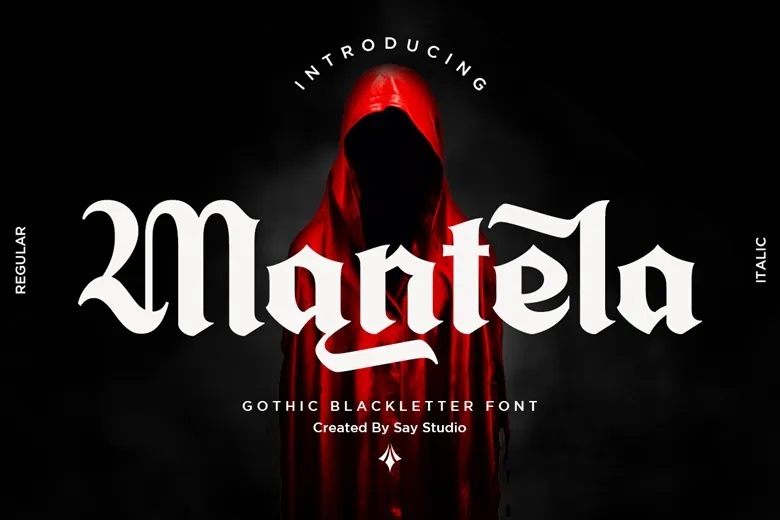
Mantela Font
Mantela is a bold gothic blackletter font designed to add dark elegance and a medieval feel to your creative work. It works well for horror movie posters, heavy metal album covers, gothic fashion brands, Halloween ads, fantasy games, medieval book covers, tattoo studios, luxury logos, packaging, YouTube thumbnails, streaming series art, merchandise, apparel, posters, and high-end editorial layouts.
If you want an occult-inspired look or dramatic typography, Mantela brings mystery, strength, and a sense of classic craftsmanship to your designs.
Mantela Blackletter Font